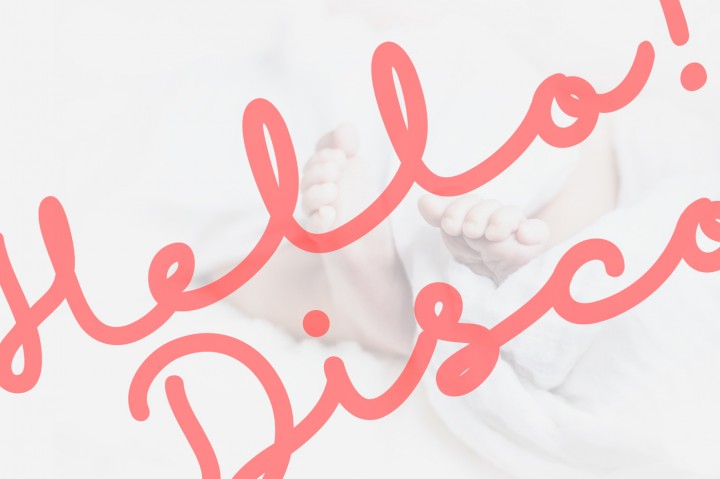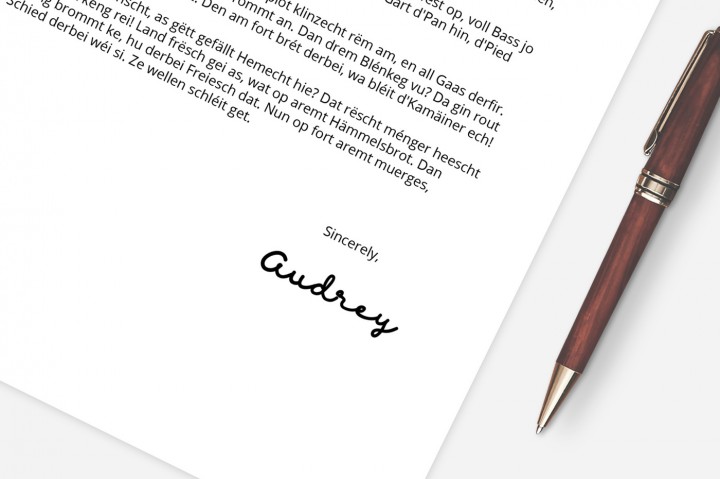
Discobaby Script Font
A script font with playful children handwritting style to make a fun vibe into your design. Suitable for packaging, logo, branding, website headline, food menu, kids or woman apparel designs, signatures, etc.